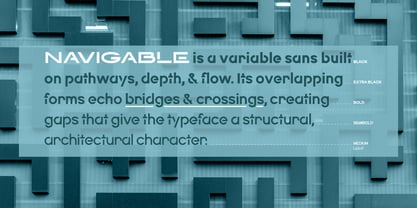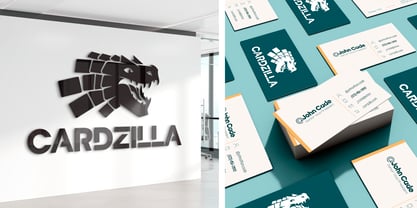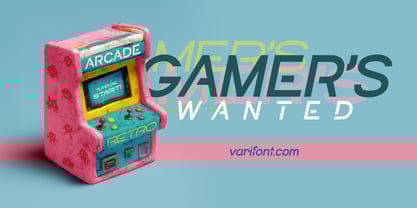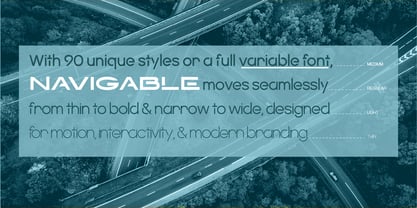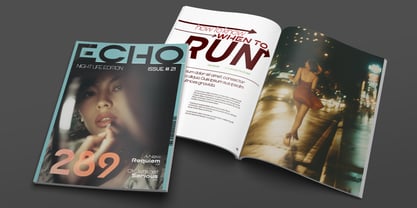
Navigable
by Varifont
The Navigable Font Family was designed by and published by Varifont. Navigable contains 90 styles and family package options. More about this family
Navigable is a modern sans-serif inspired by pathways, crossings, and the layered depth of architecture. Designed during a sabbatical after more than a decade of teaching typography, Navigable explores the idea of movement and structure — like roads and bridges seen from above. Its forms are clean, confident, and versatile, shifting between futuristic sharpness and approachable simplicity.
As a display face, Navigable commands attention while retaining strong legibility. It works beautifully in motion design, packaging, and branding — and has been used professionally in everything from card game decks to digital advertising and motion branding. The family offers a wide expressive range, making it equally at home in bold headlines, sleek UI design, or dynamic interactive typography.
With 400+ glyphs, full multilingual support, extensive weight and width coverage, and italics, Navigable is built to adapt. Its superfamily flexibility gives designers the freedom to span across mediums, making it a reliable choice for projects that need both style and clarity.